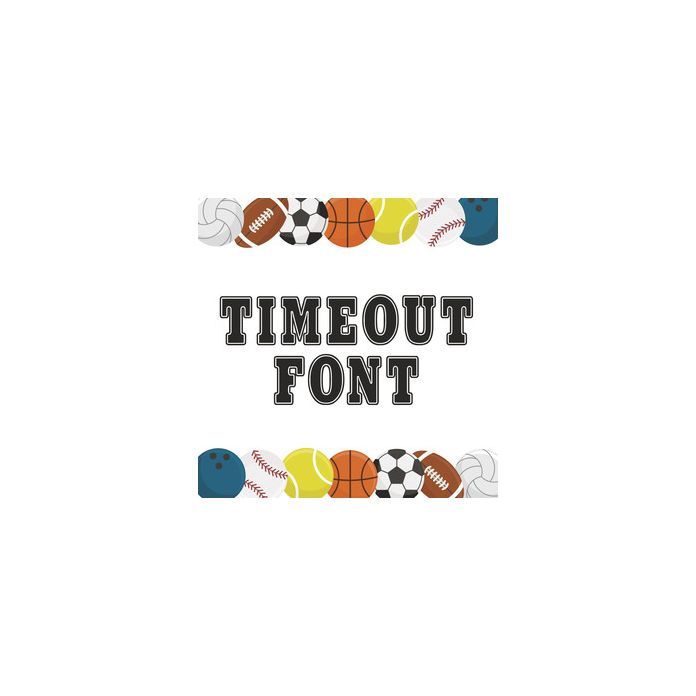
Give your athletic designs that perfect look with Timeout Font!
Goes great on:
Jerseys
Tshirts
Hoodies
Banners
Invites
Labels
Support your child/team with the timeless Timeout Font!